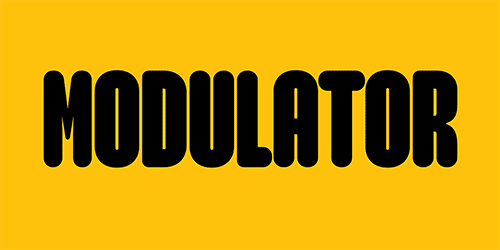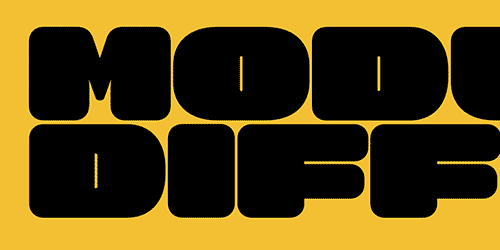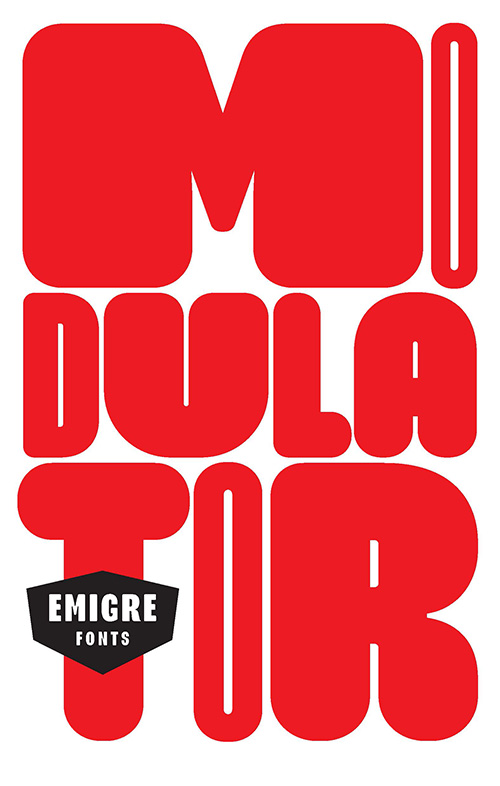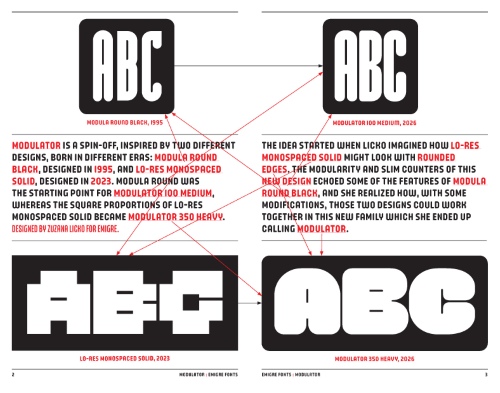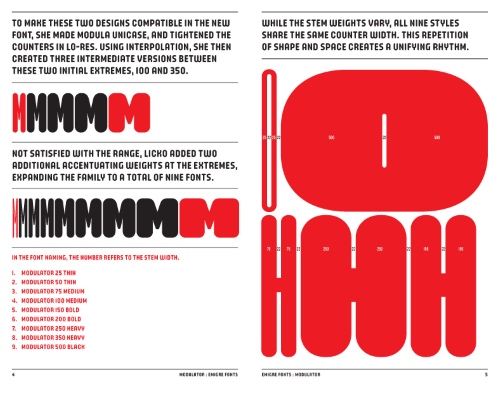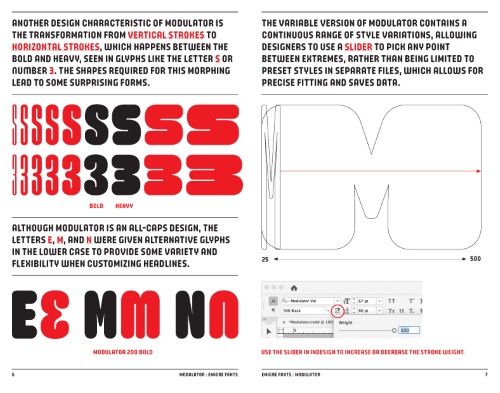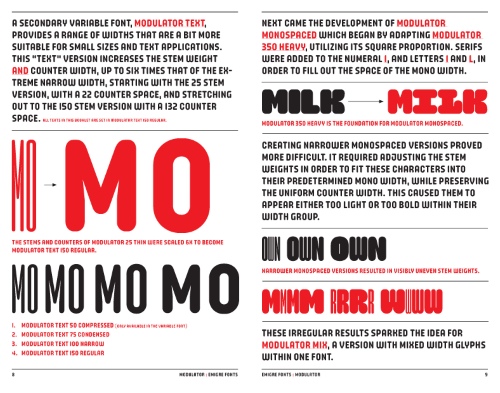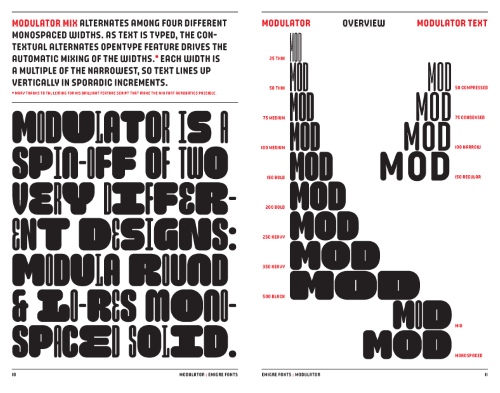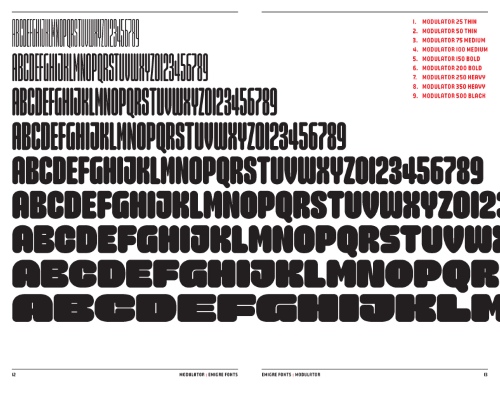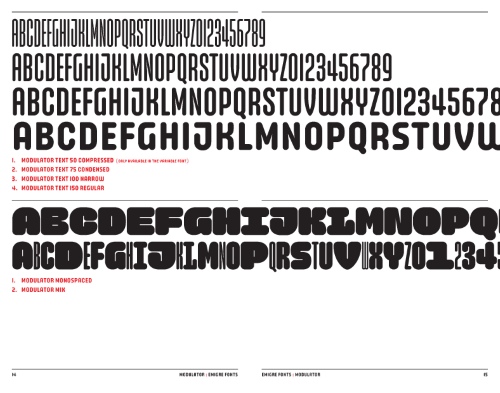
Modulator - 14 Styles Font Family
- Modulator is a spin-off inspired by two different designs born in different eras: Modula Round Black, designed in 1995, and Lo-Res Monospaced Solid, designed in 2023. Modula Round was the starting point for Modulator 100 medium, whereas the square proportions of Lo-Res Monospaced Solid became Modulator 350 heavy. The idea started when designer Zuzana Licko imagined how her Lo-Res Monospaced Solid might look with rounded edges. The modularity and slim counters of this new design echoed some of the features of Modula Round Black, and she realized how, with some modifications, those two designs could work together in this new family which she ended up calling “Modulator.” To make these two designs compatible in the new font, she made Modula a unicase font, and tightened the counters in Lo-Res. Using interpolation, she then created three intermediate versions between these two initial extremes. Not satisfied with the range, Licko added two additional accentuating weights at the extremes, expanding the family to a total of nine fonts. While the stem weights vary, all nine styles share the same counter width. This repetition of shape and space creates a unifying rhythm.